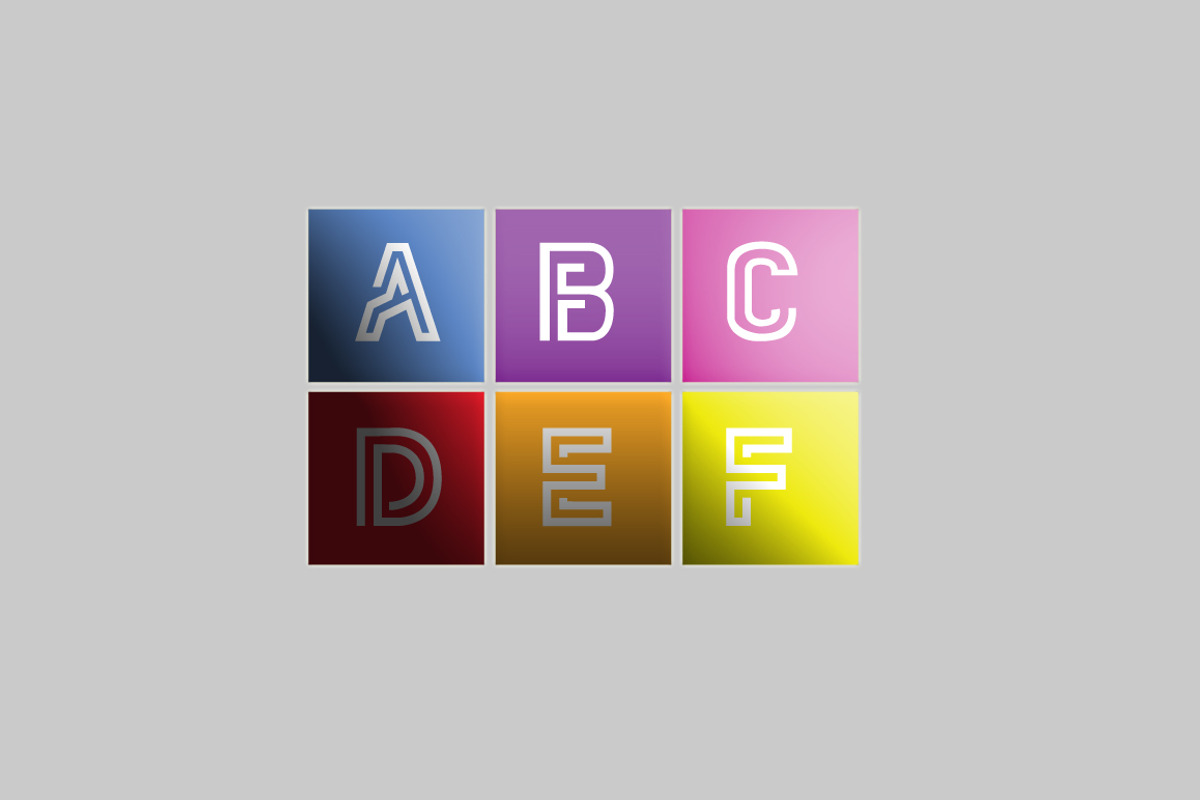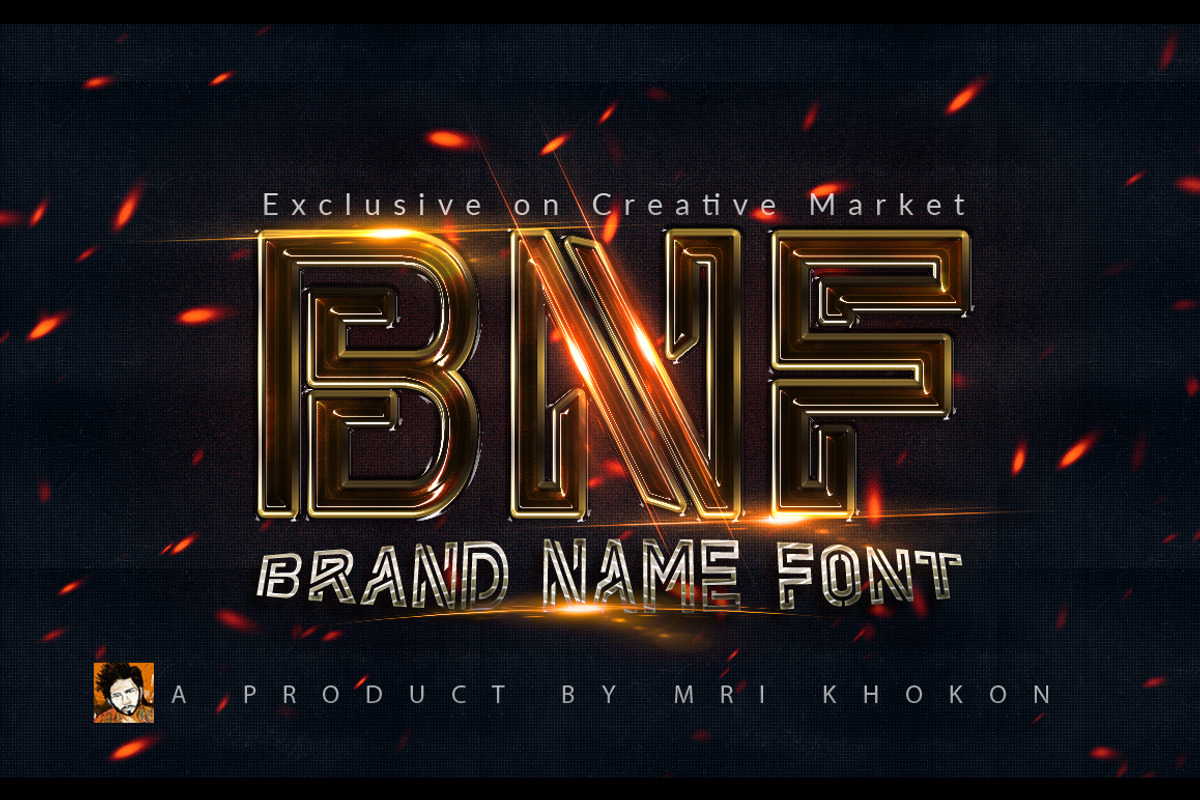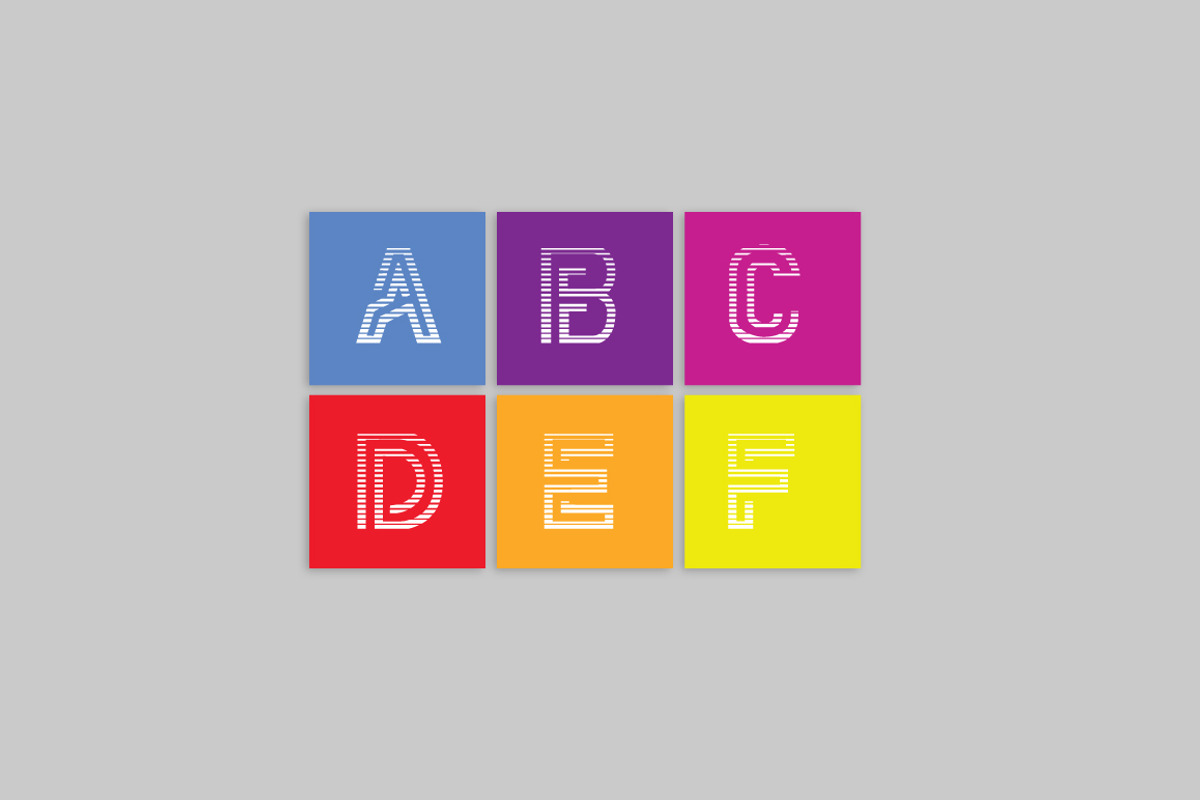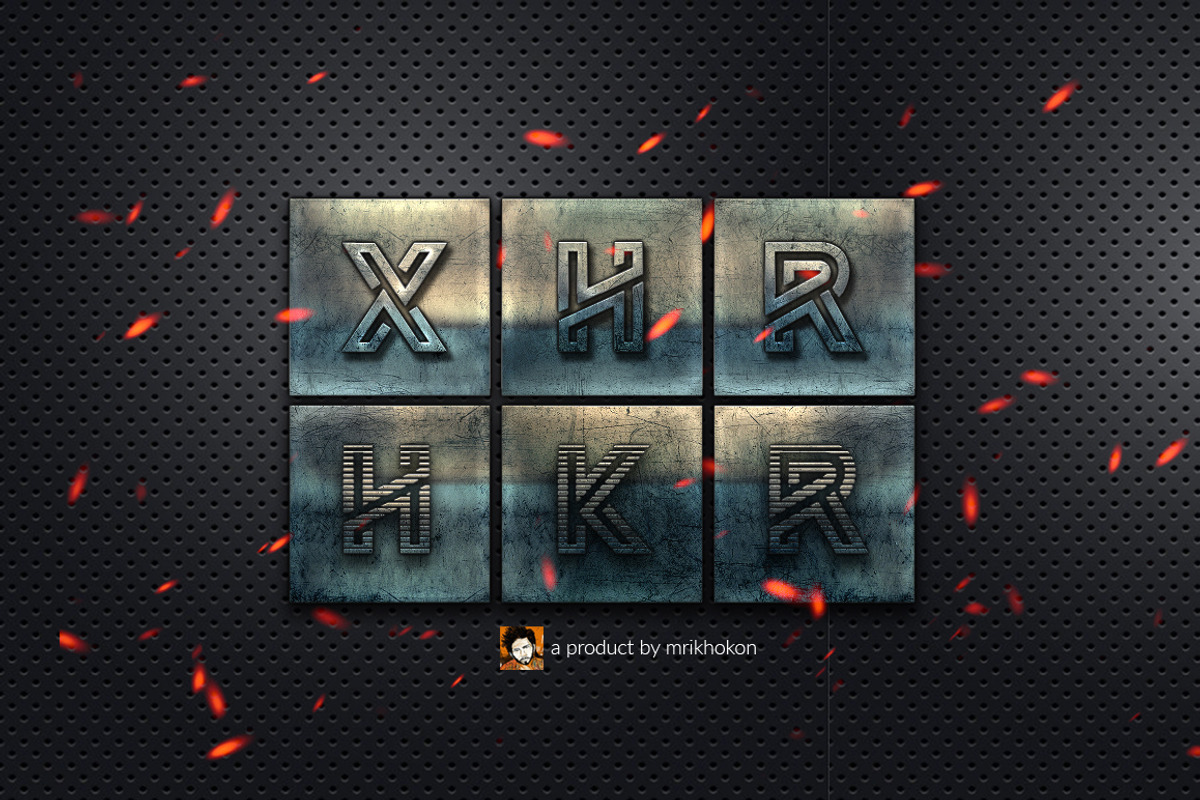
Brand Name Font
Brand Name Font by MRI STUDIO is a font selected for branding, posters, packaging, typography.
- Available in Regular and Brand Name Line Font version with all special characters.
Brand Name Font by MRI STUDIO fits naturally into Branding, posters, packaging, typography.